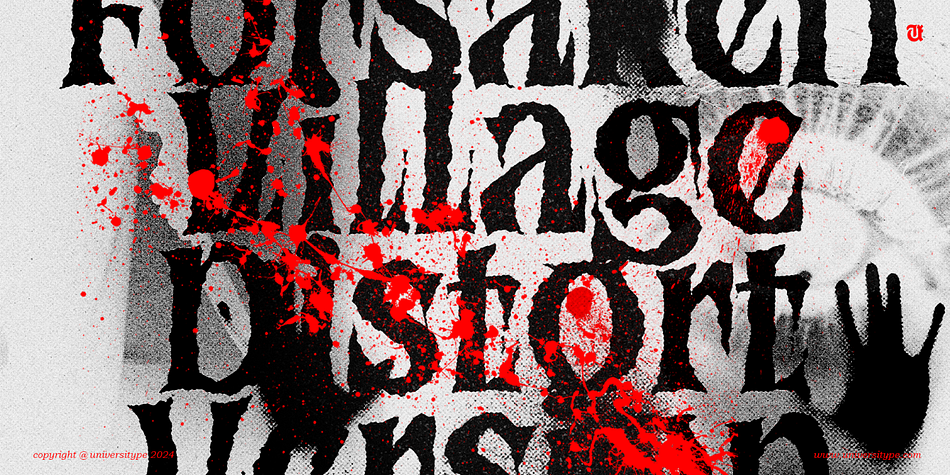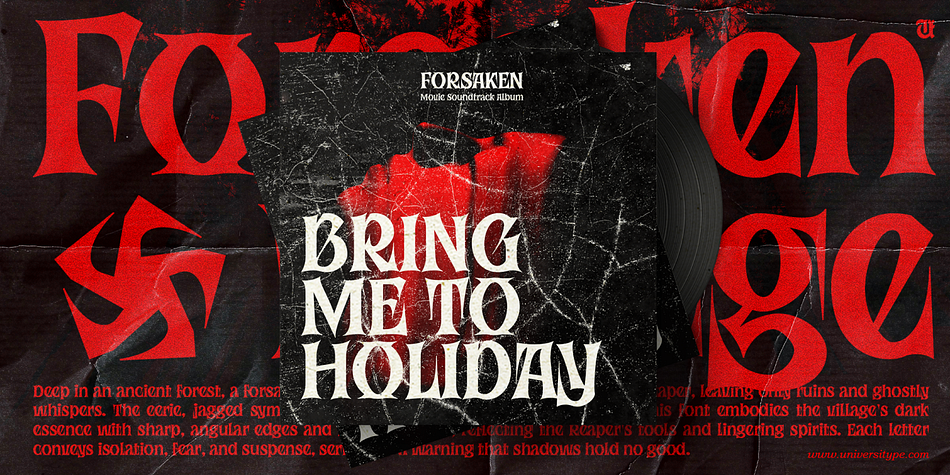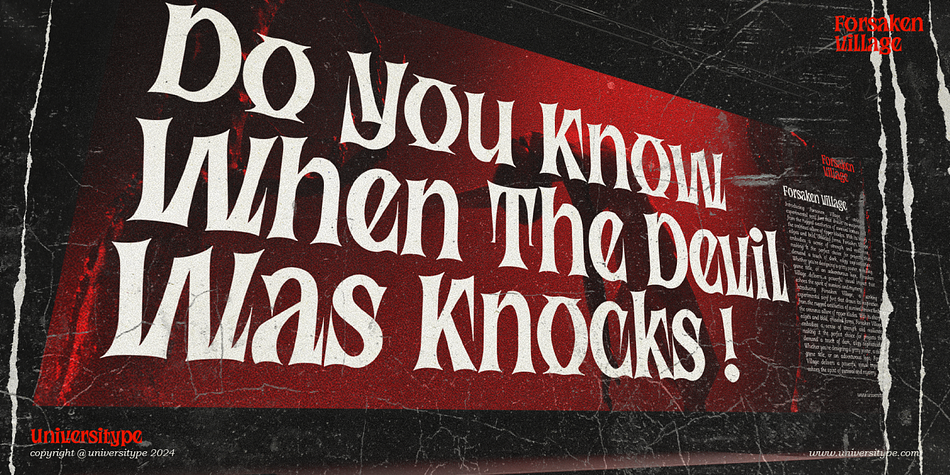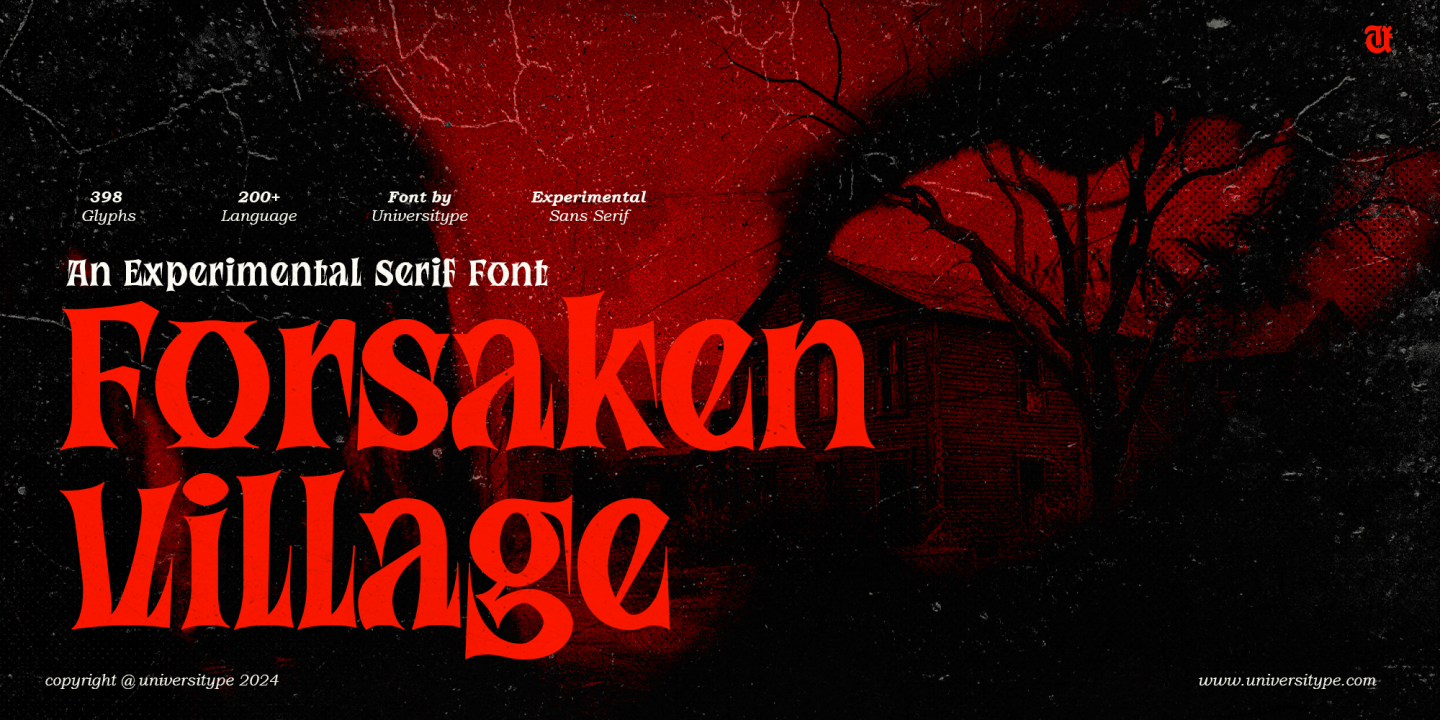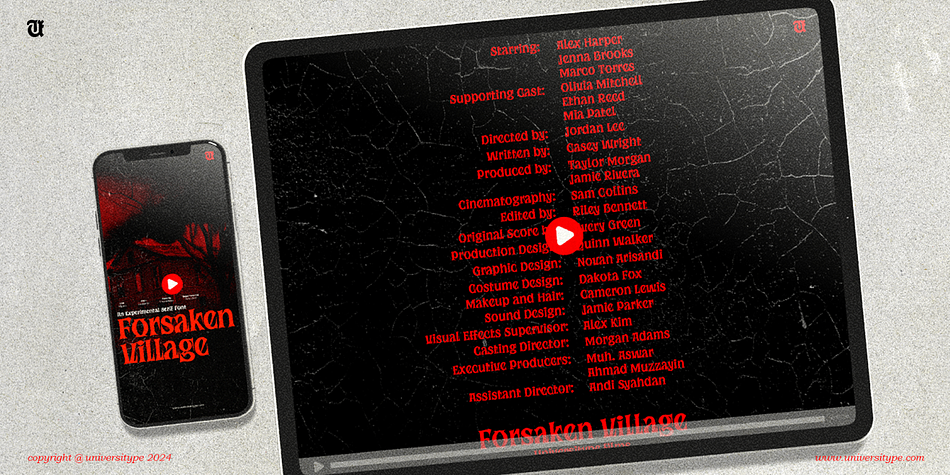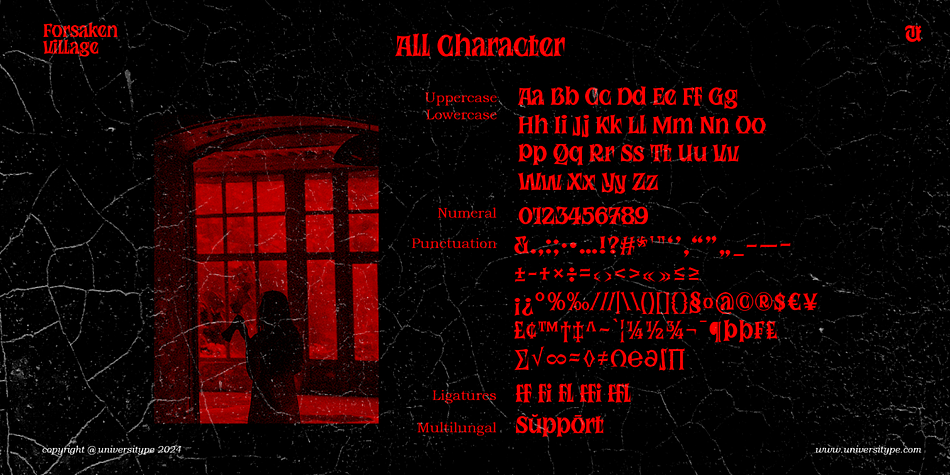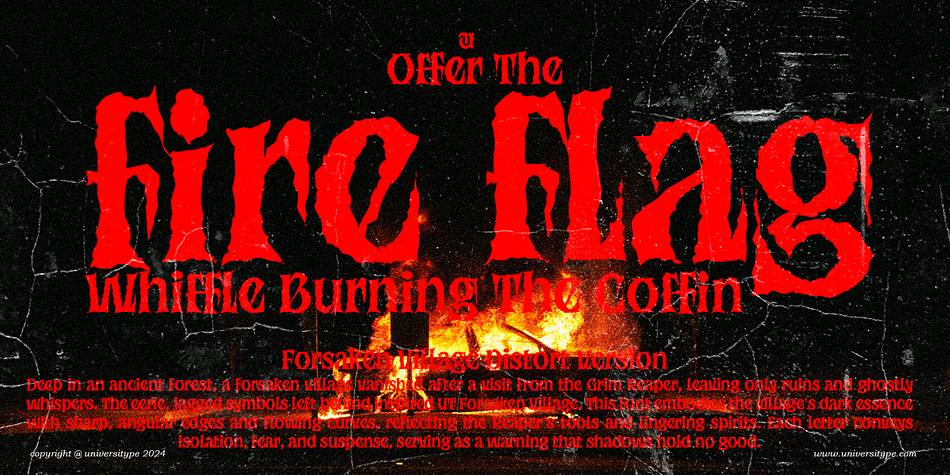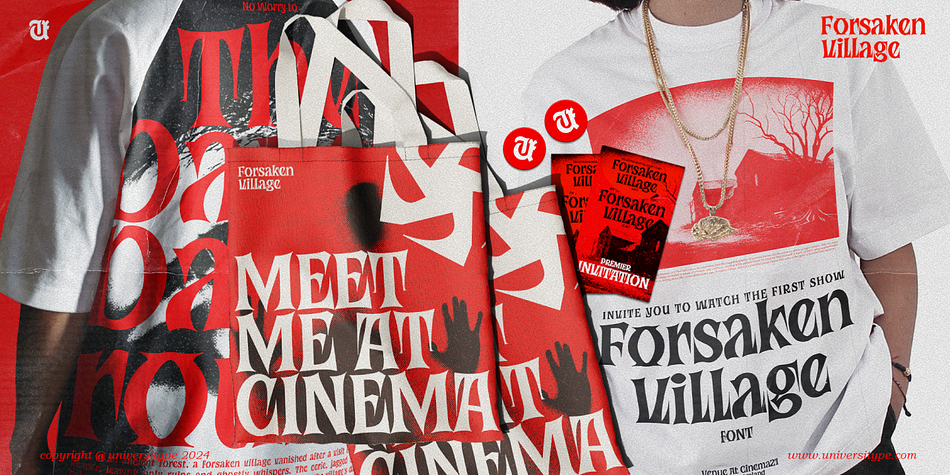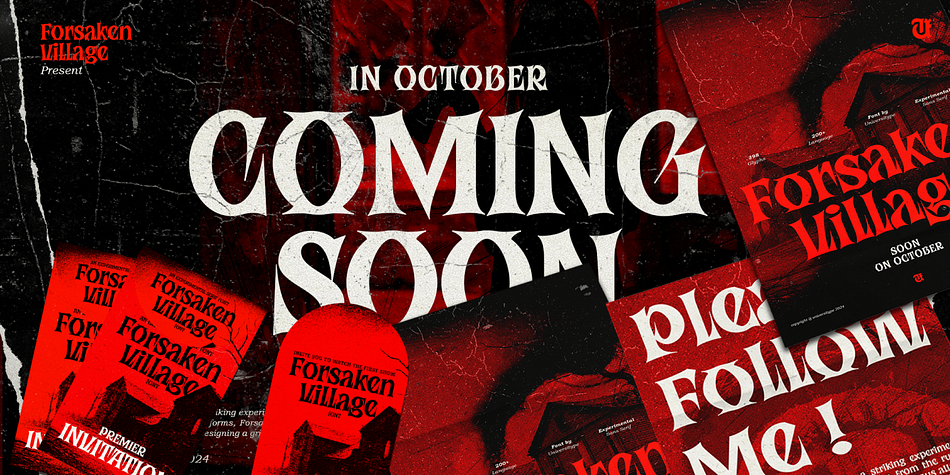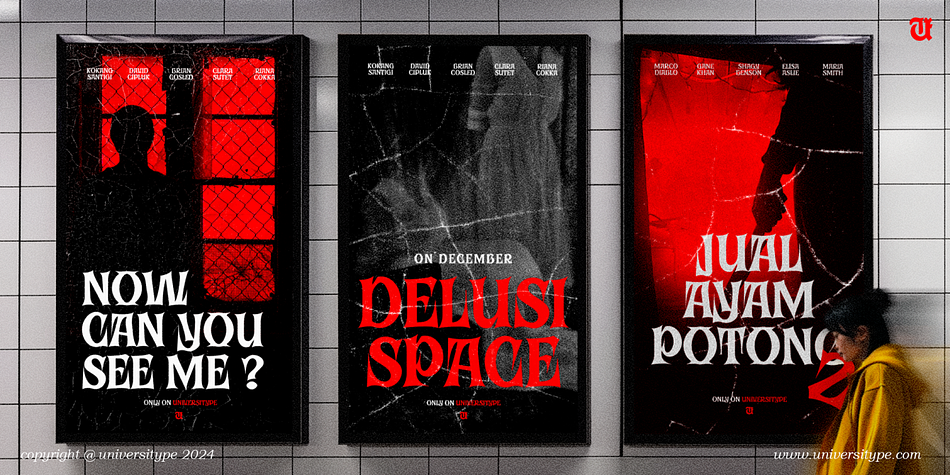
UT Forsaken Village
Designed by Novan Arisandi, Muh Aswar, Andi Syahdang and Ahmad Muzayyin Syarkawi, UT Forsaken Village is a serif font family. This typeface has two styles and was published by Universitype.
Step into the dark, mysterious world with UT Forsaken Village, a terrifyingly captivating font inspired by the ominous presence of the Grim Reaper himself. This font evokes a spine-chilling atmosphere, perfect for projects where you want to elicit fear, suspense, and intrigue. With sharp edges, distorted strokes, and haunting silhouettes, UT Forsaken Village is not just a typeface but a journey into the unknown—a village left abandoned, where shadows whisper and darkness reigns.
This scary font taps into the essence of horror and gothic design, perfect for those who dare to step into the realm of the supernatural. The bold strokes are designed to evoke fear, while the intricate details provide an eerie elegance. Whether you’re crafting a horror movie poster, a haunted house invitation, or a chilling book cover, UT Forsaken Village will bring a sense of dread to your designs.
Beyond its ominous appearance, UT Forsaken Village offers versatility, making it a functional yet aesthetic choice for horror-themed branding. The typeface seamlessly blends old-world gothic elements with modern sensibilities, resulting in a font that feels timelessly unsettling. Its fluid adaptability also means it can be used in various digital and print projects while maintaining its eerie charm.
UT Forsaken Village is tailored for creatives who work in industries that often lean on dark, mysterious, or horror-inspired aesthetics. Ideal for graphic designers, branding experts, and marketing teams working in entertainment, this font is perfect for:
- Horror and Thriller Content Creators: Whether it’s for a film studio producing horror movies, an indie game developer building a dark, atmospheric video game, or a YouTuber known for eerie, supernatural content, UT Forsaken Village can provide the spine-tingling typography needed to match their visual style.
- Publishers and Authors of Horror Fiction: For book covers, chapter titles, and even digital e-books, this font is an excellent choice for any literature aiming to thrill or terrify. The font pairs exceptionally well with grim and atmospheric book genres like horror, supernatural fiction, and gothic fantasy.
- Event Planners for Halloween or Horror-Themed Parties: Whether for personal parties or professionally staged haunted houses, UT Forsaken Village can be the perfect touch for invitations, event banners, and promotional materials, setting the tone for a night filled with frights.
- Gothic and Alternative Fashion Brands: Fashion labels that focus on gothic or alternative clothing lines can use this font in their marketing materials, packaging, and even on apparel itself. The font’s sharp edges and twisted strokes match well with dark fashion themes.
- Tattoo Artists and Parlors: The distinctive aesthetic of UT Forsaken Village could serve as inspiration for tattoo designs or tattoo parlor signage, particularly in shops specializing in gothic or horror art.